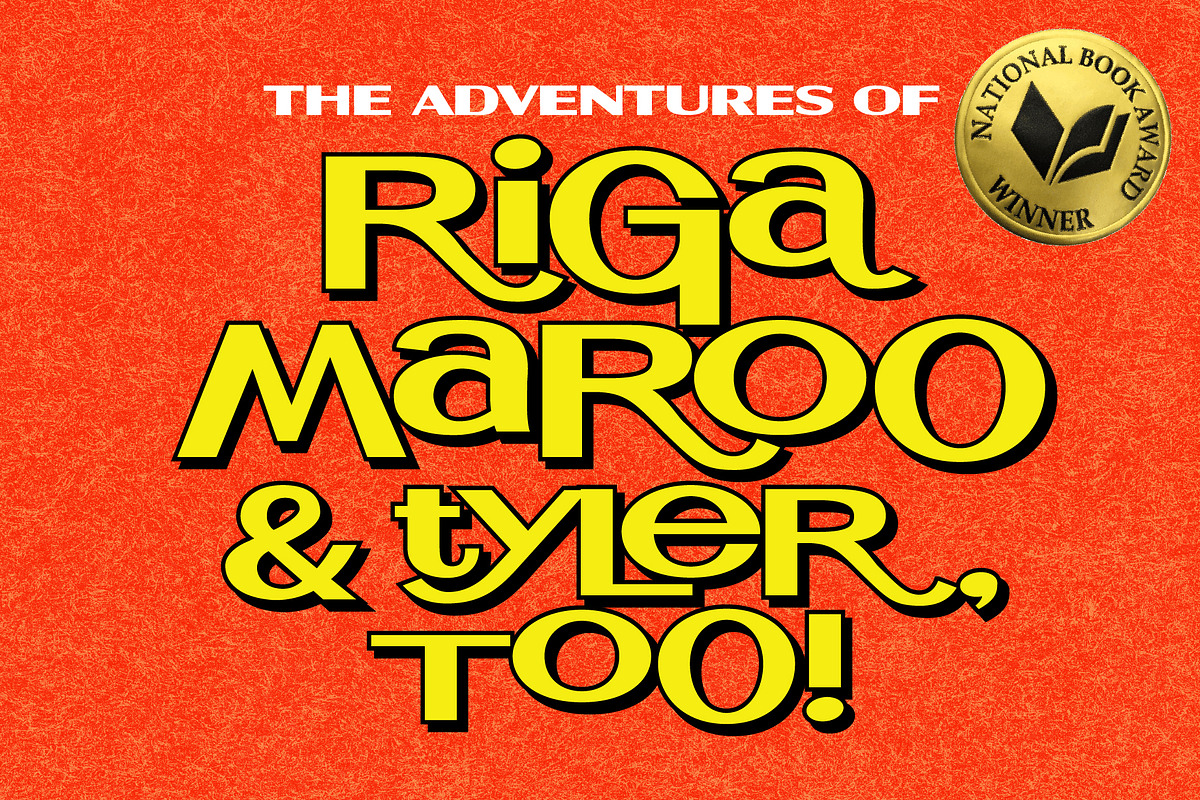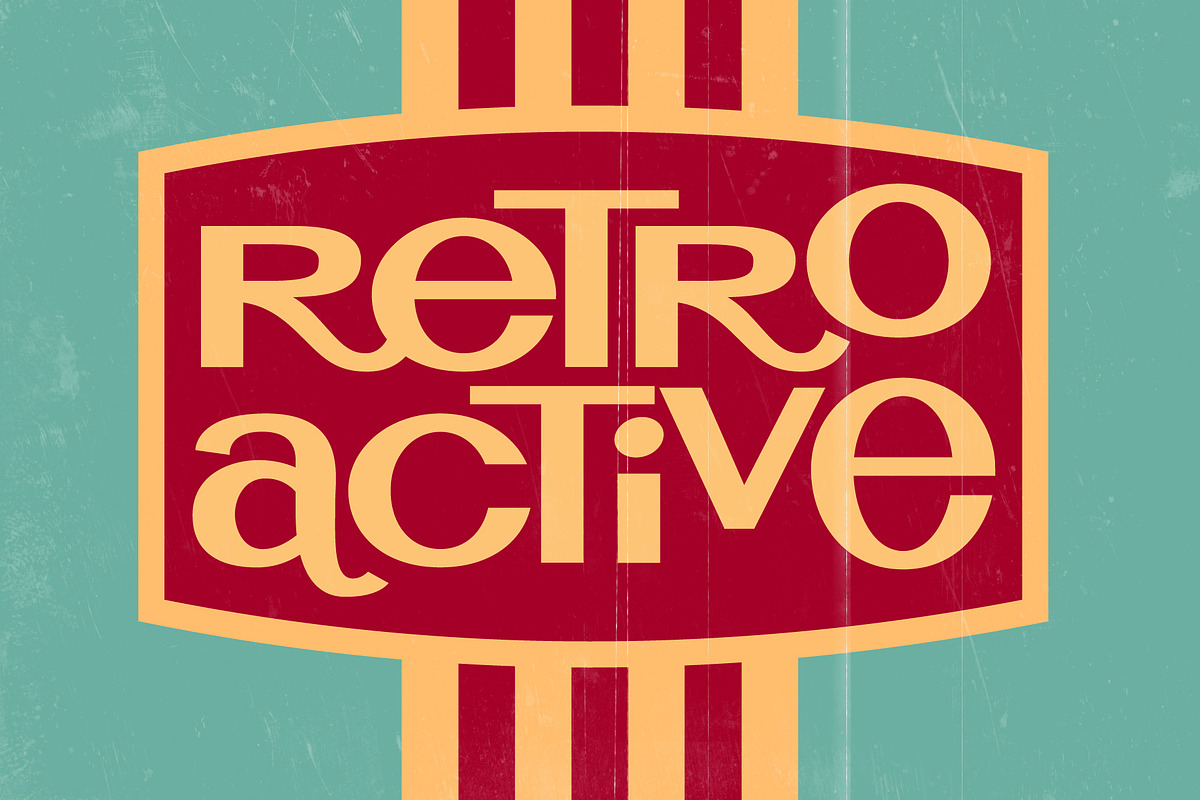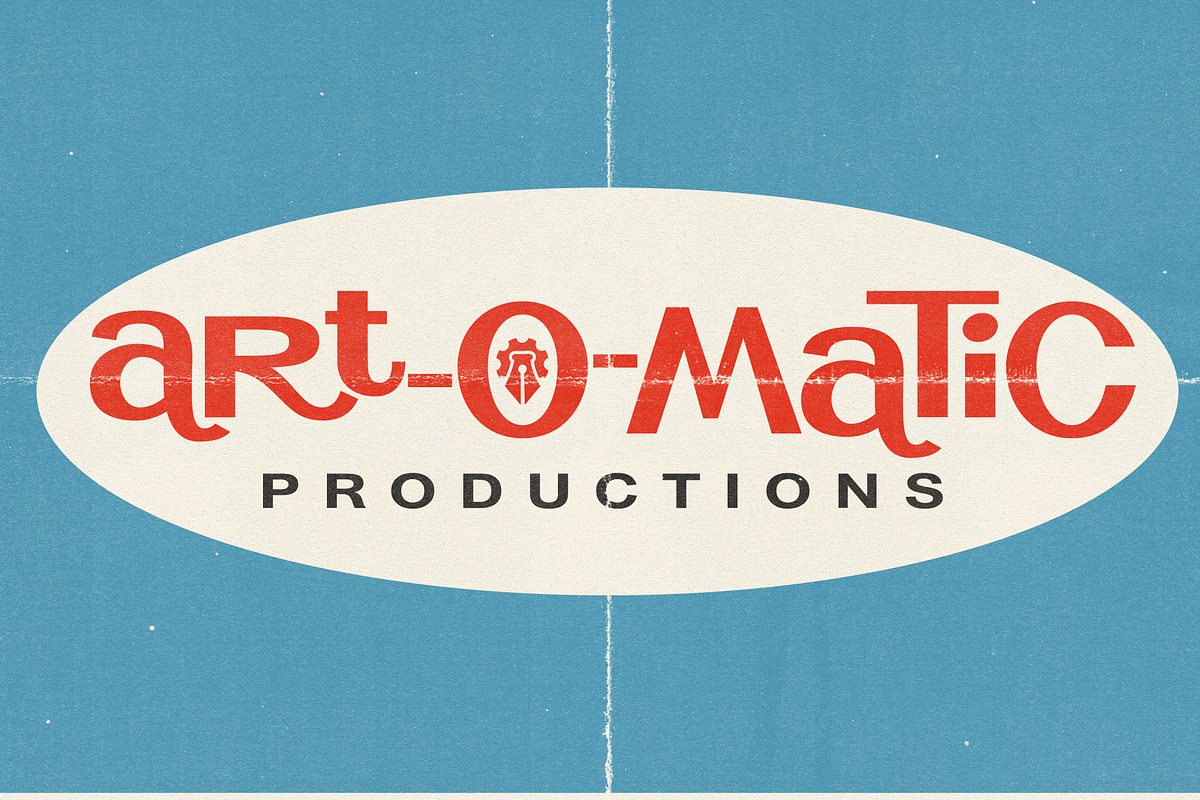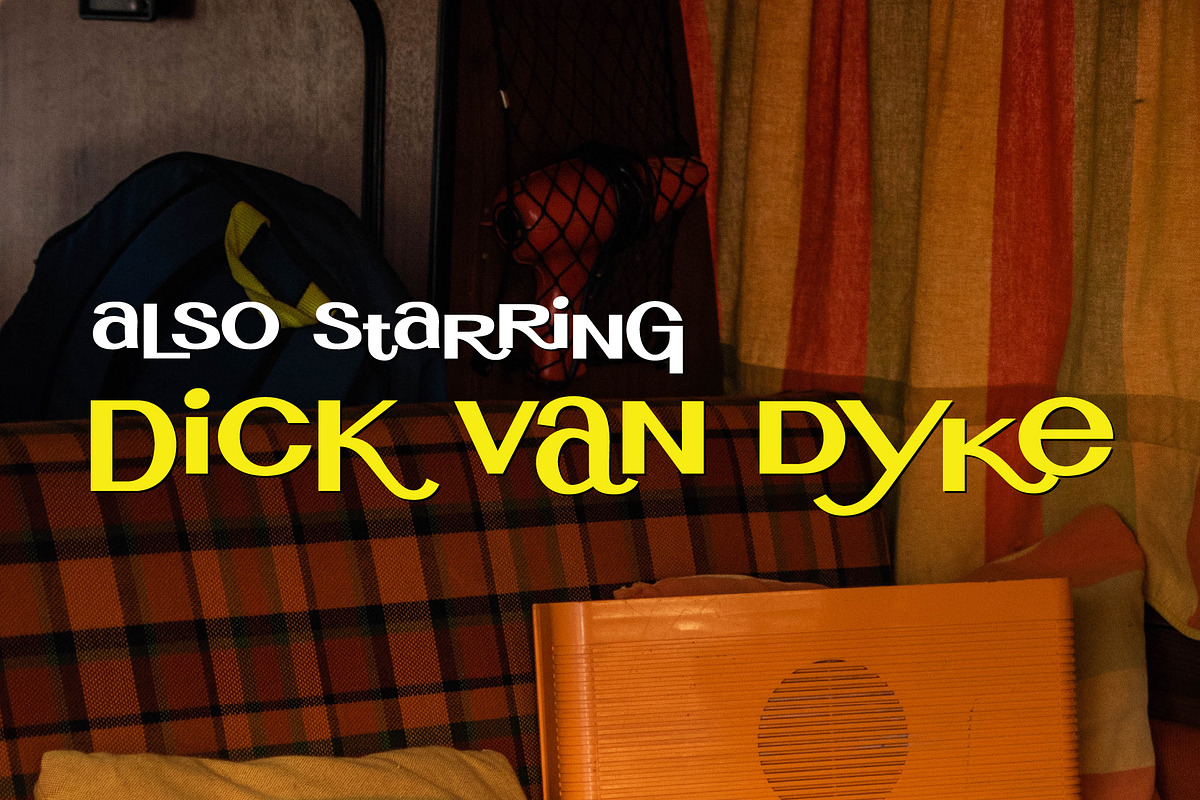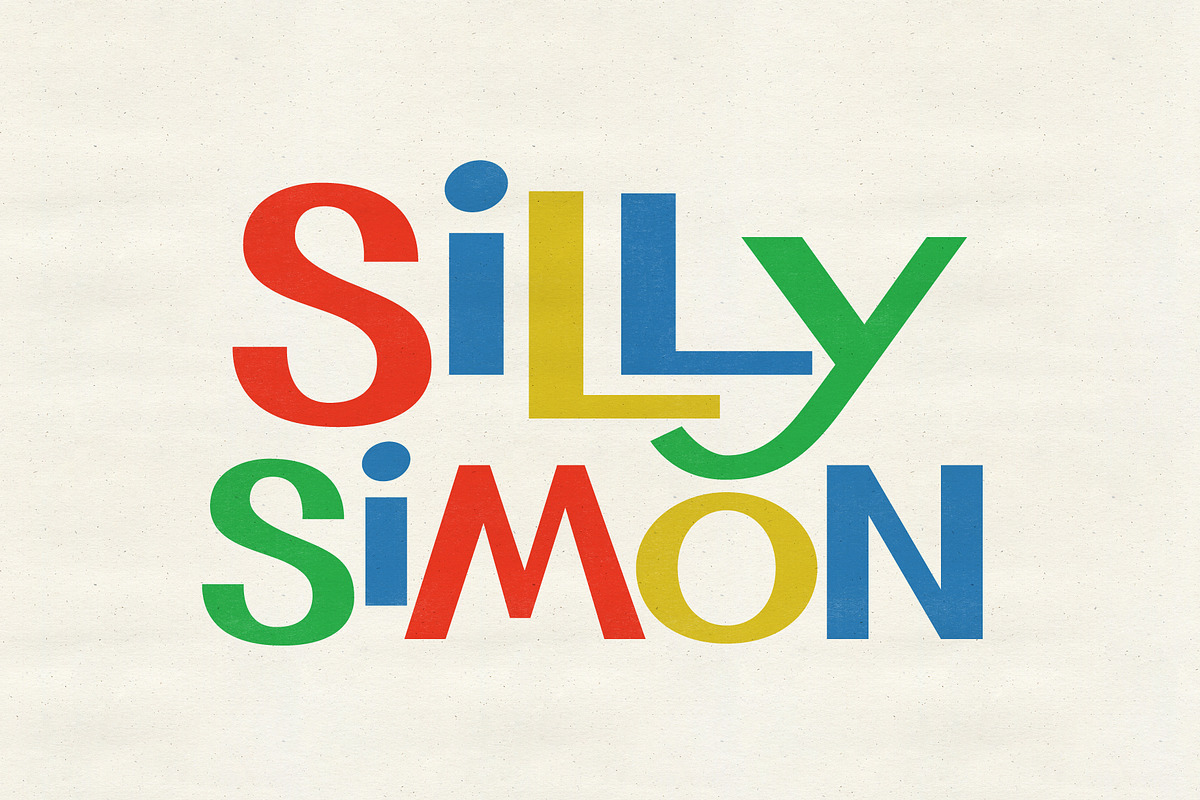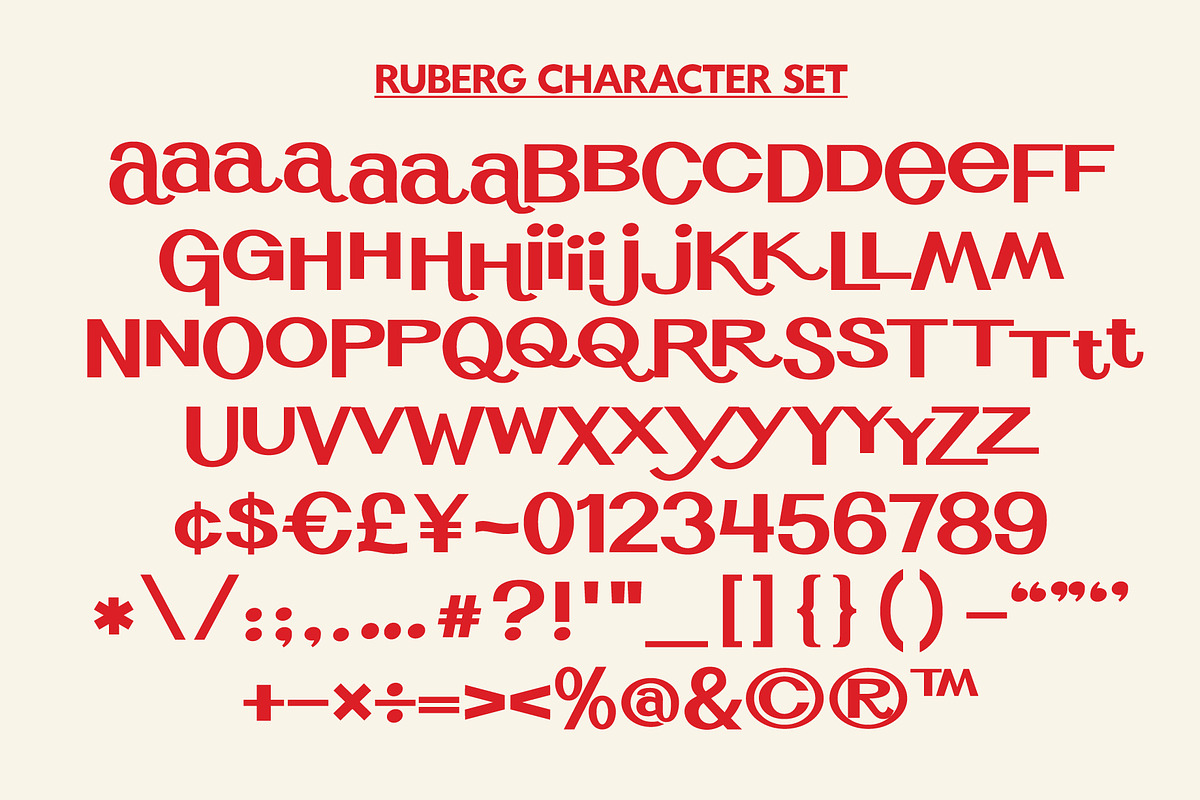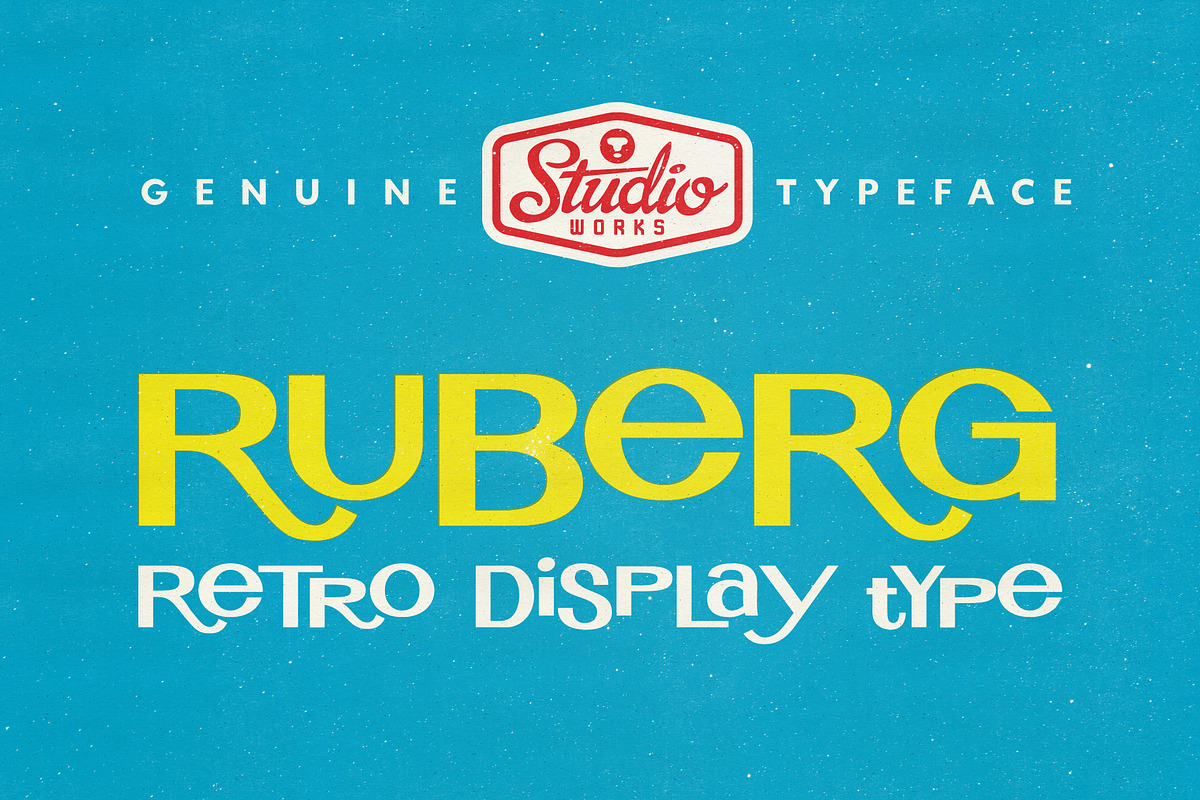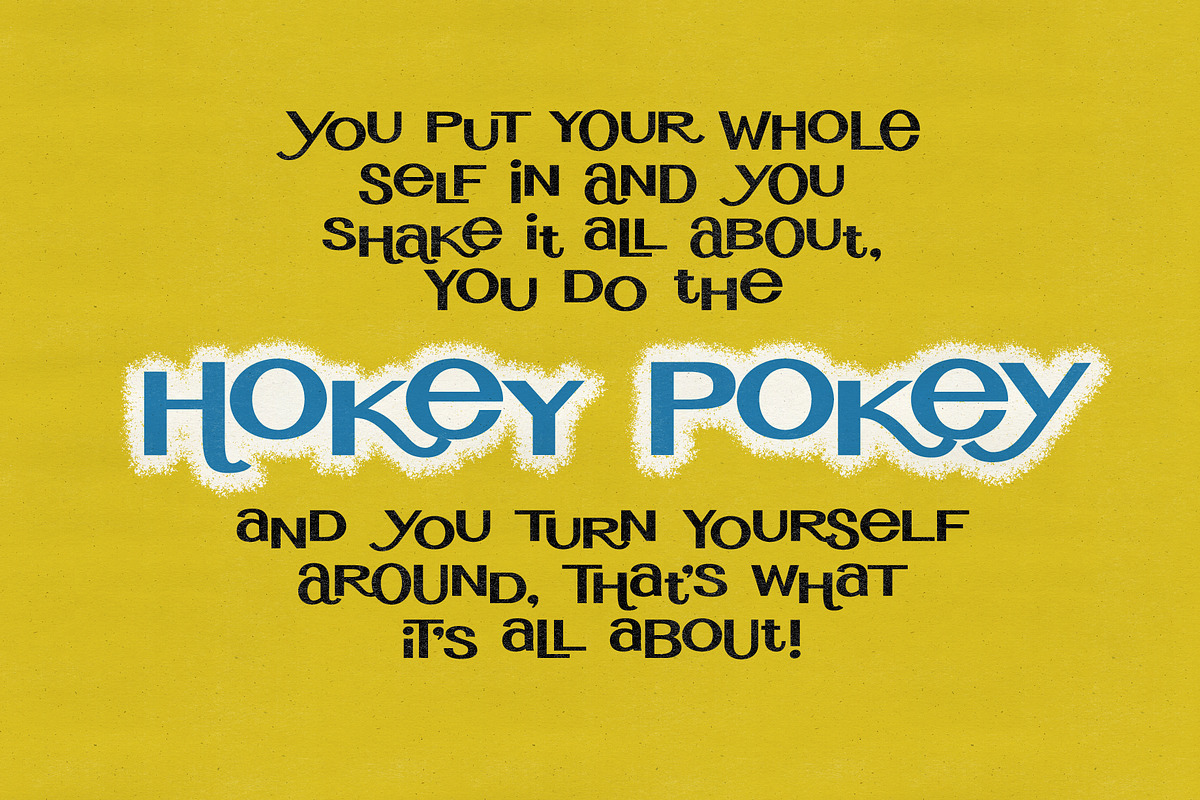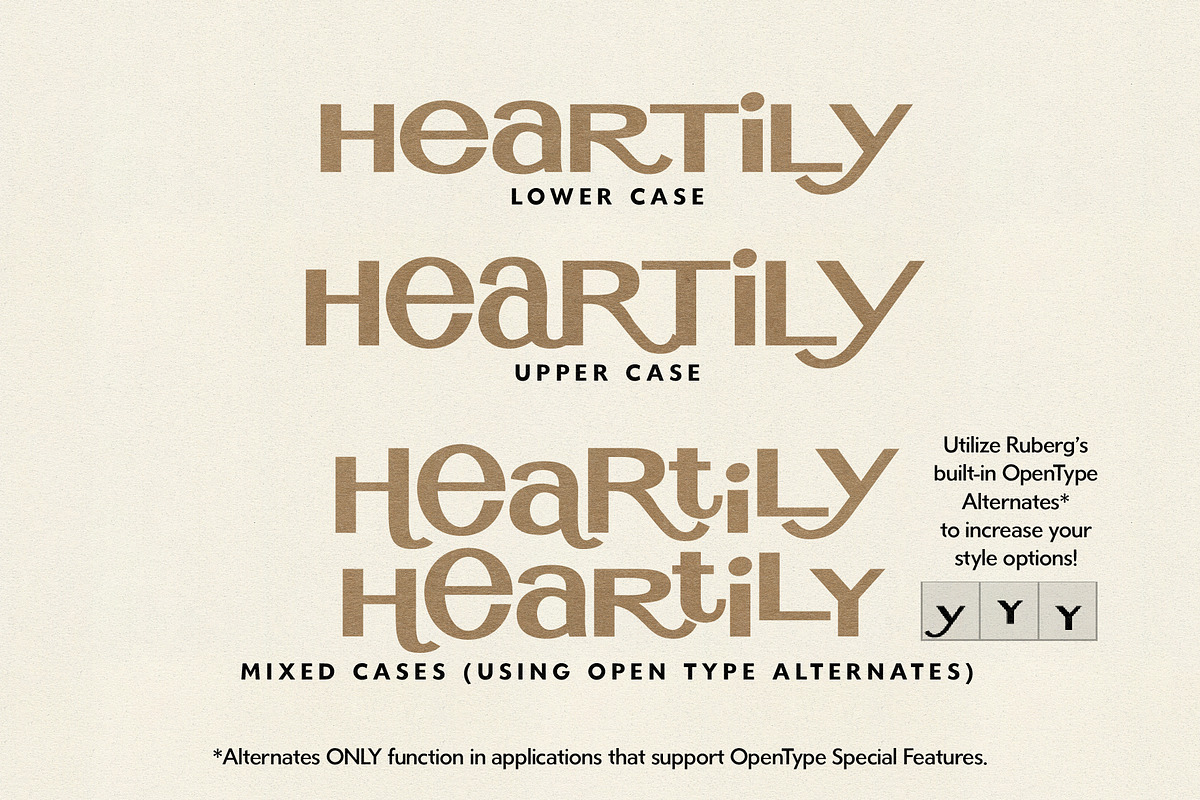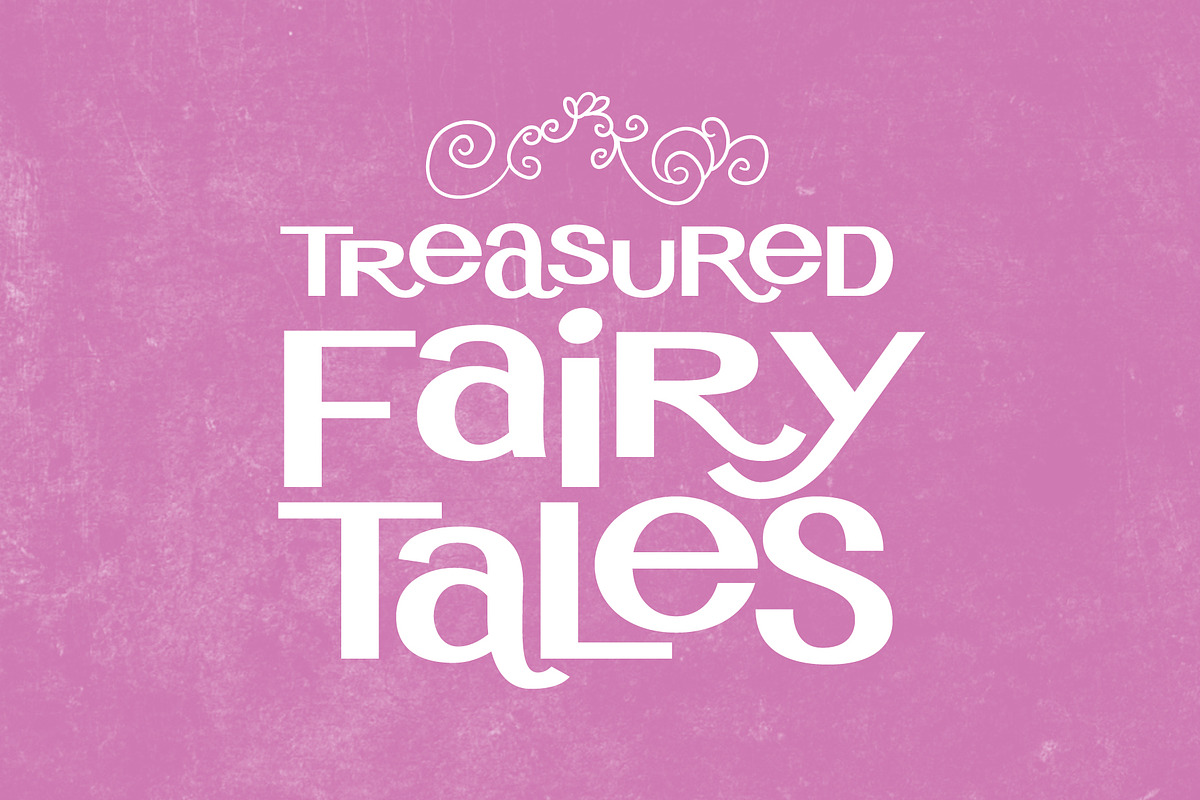
Ruberg | Retro Display Type!
StudioWorks proudly presents •• R U B E R G •• — a creatively inventive retro display typeface.!
Ruberg's mash-up of upper and lower case characters miraculously combine to create a playful, retro-inspired alphabet that jumps and dips as you type! To make this possible, we methodically included a duplicate alphabet using OpenType alternate characters with a different baseline so that tall letters will more easily mesh with short letters. We've also machined alternate variations for select glyphs so that you can experiment with your letter styling even more — the type is creatively arranged as you set it! No more excessive tweaking and editing after the fact. Set it and forget it! NOTE: These character alternates are ONLY available in those applications that support Open Type features. If you're not sure if your application supports Open Type features check out the following link: https://support.creativemarket.com/hc/en-us/articles/360037478813
- 'Upper' (A-Z) and two 'lower' case (a-z) character sets
- Additional alternate characters for select glyphs (a,h,i,t,y)
- Numbers (0-9)
- Standard punctuation and glyphs
Ruberg delivers a fun-loving retro vibe to logos, posters, title cards, film credits, book covers and magazines! Reach for Ruberg Retro Display Type the next time you're assembling projects that require some vintage charm!